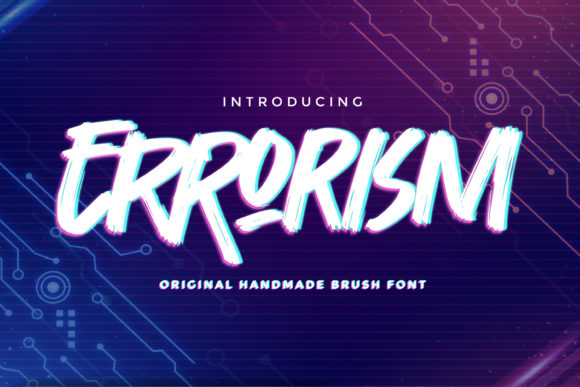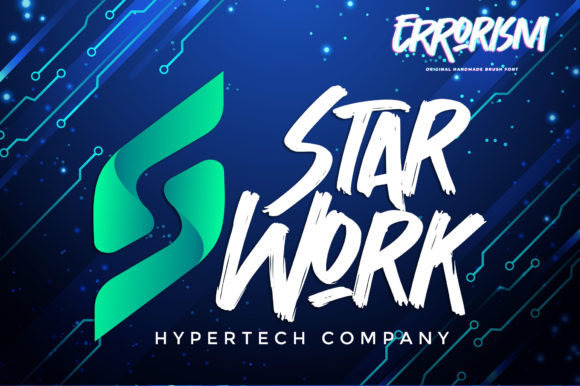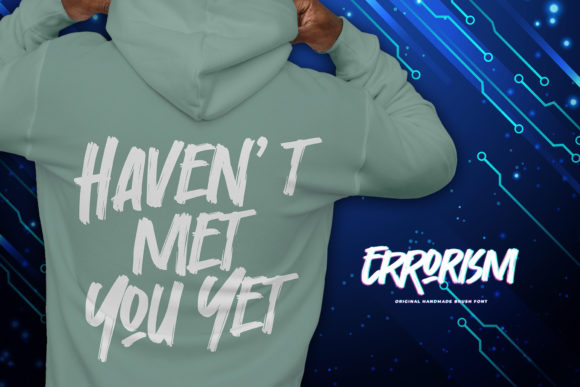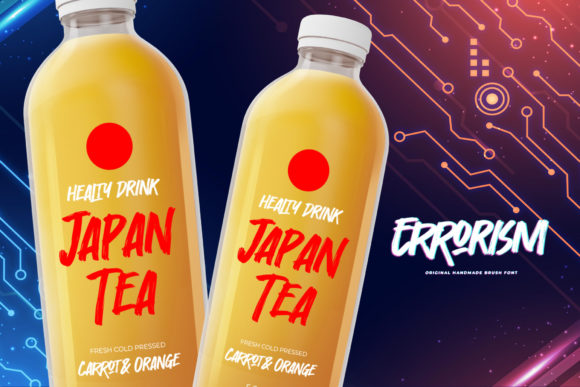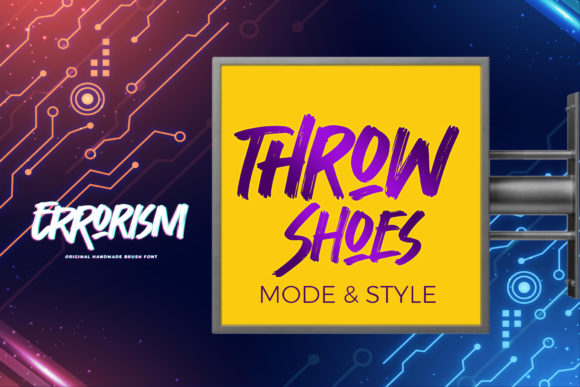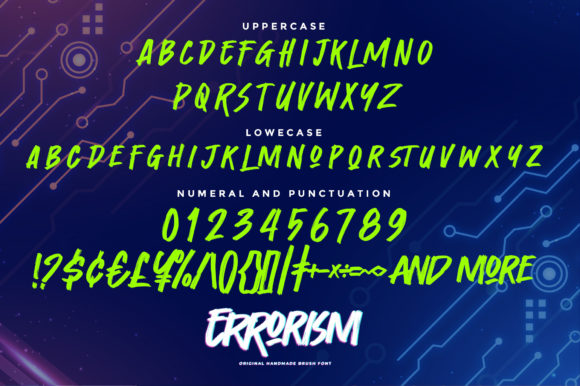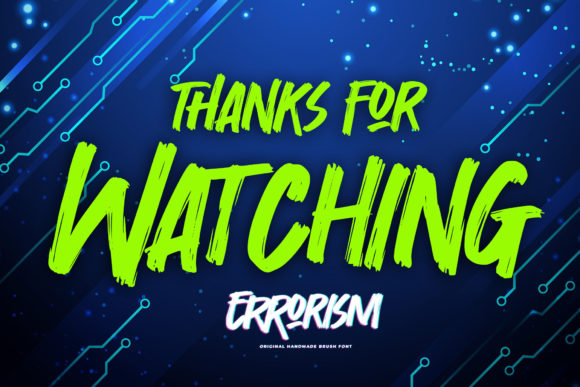
Errorism Font
Errorism is an original handmade brush font, written casually and quickly. That is why Errorism has rough, authentic, and strong characters with a more natural look. Errorism Perfect for designs, branding projects, logo design, quotes product packaging, and other projects that require cool, strong brush font.